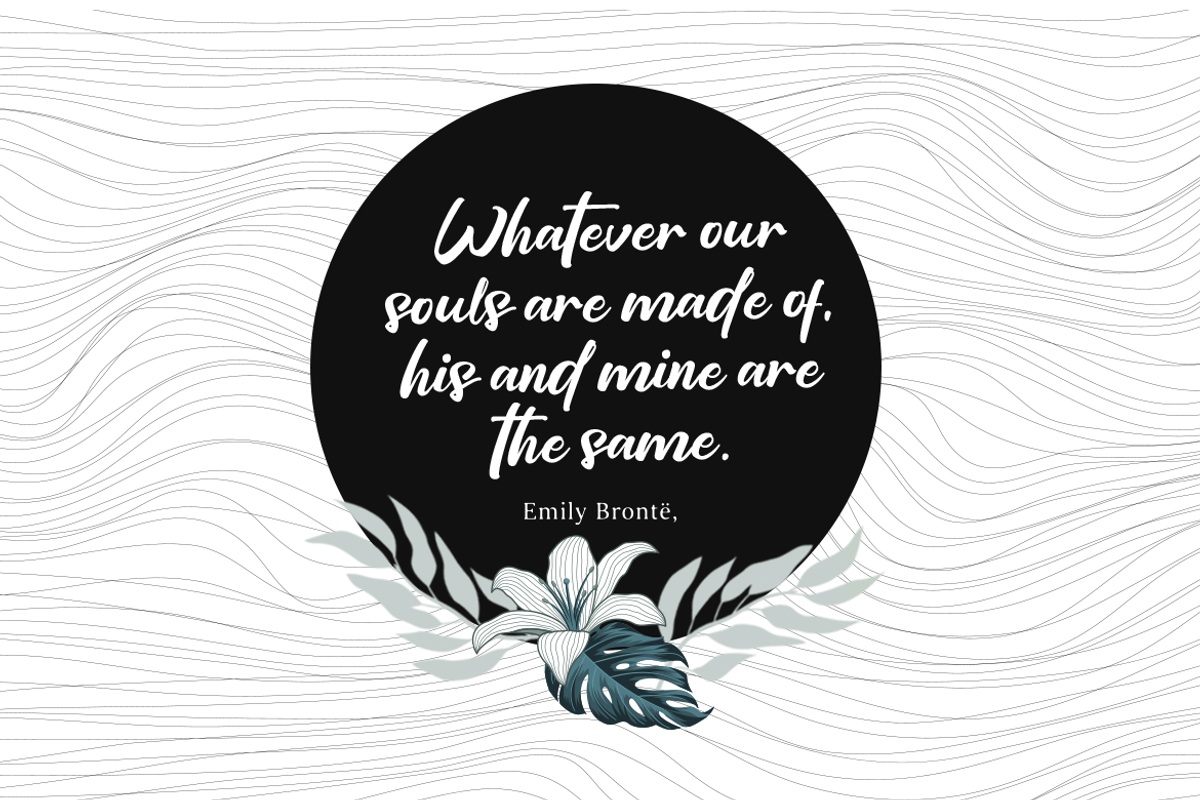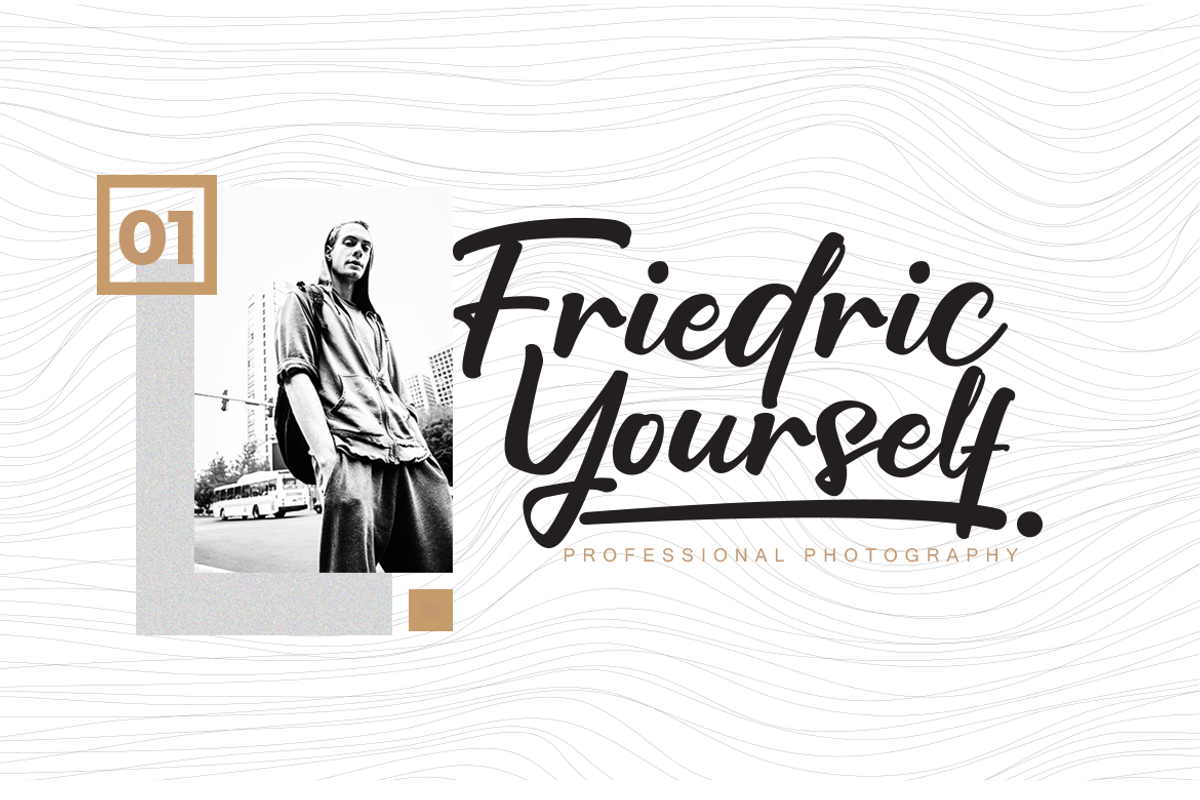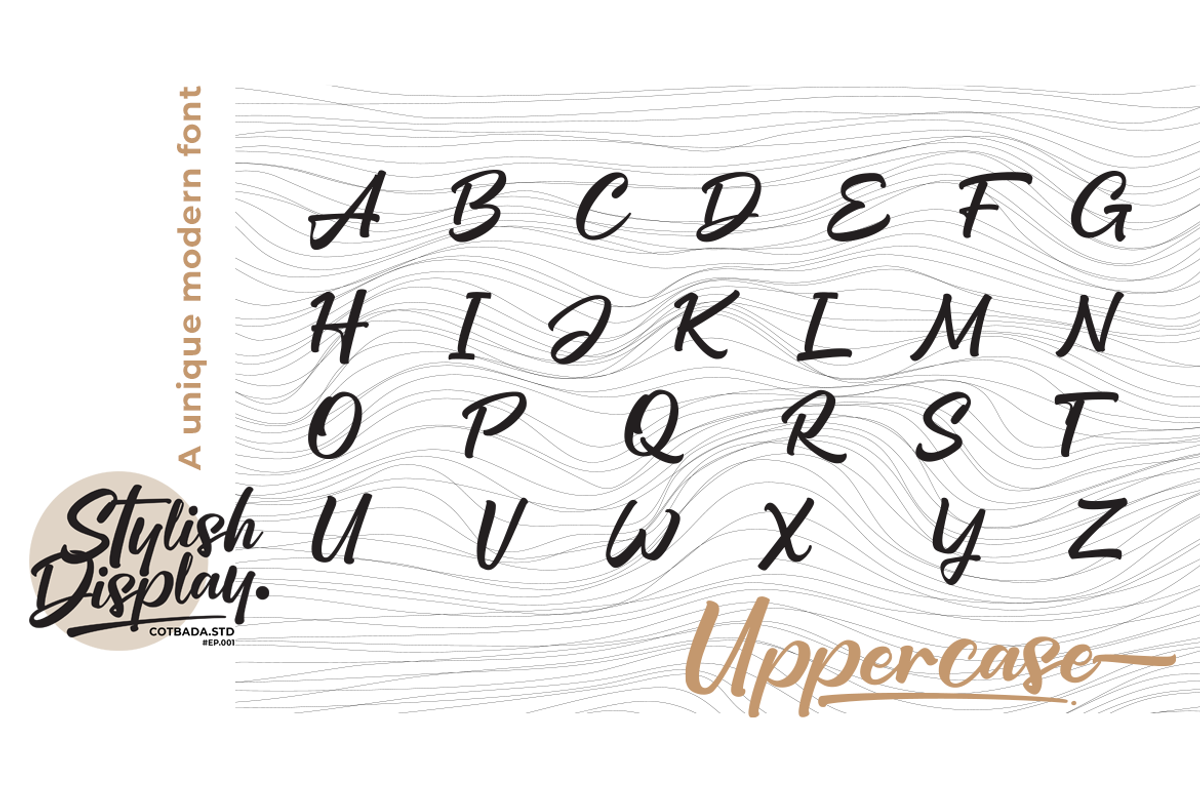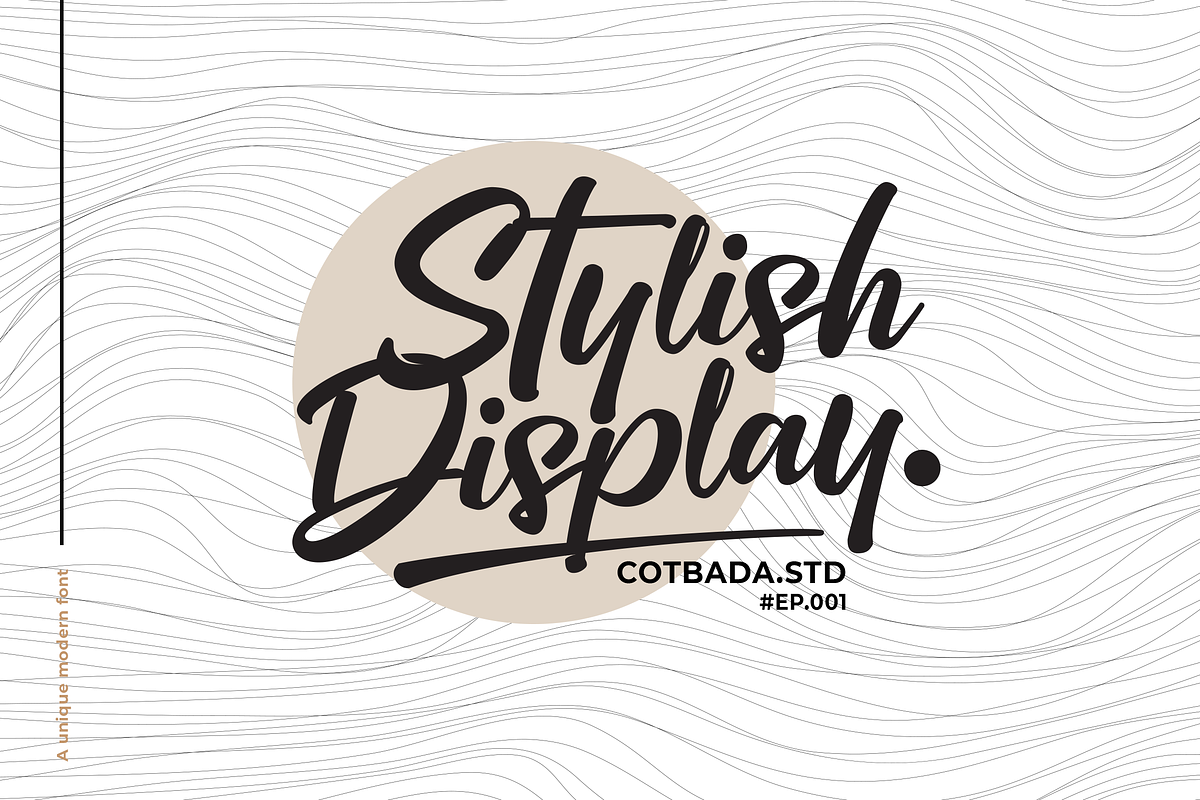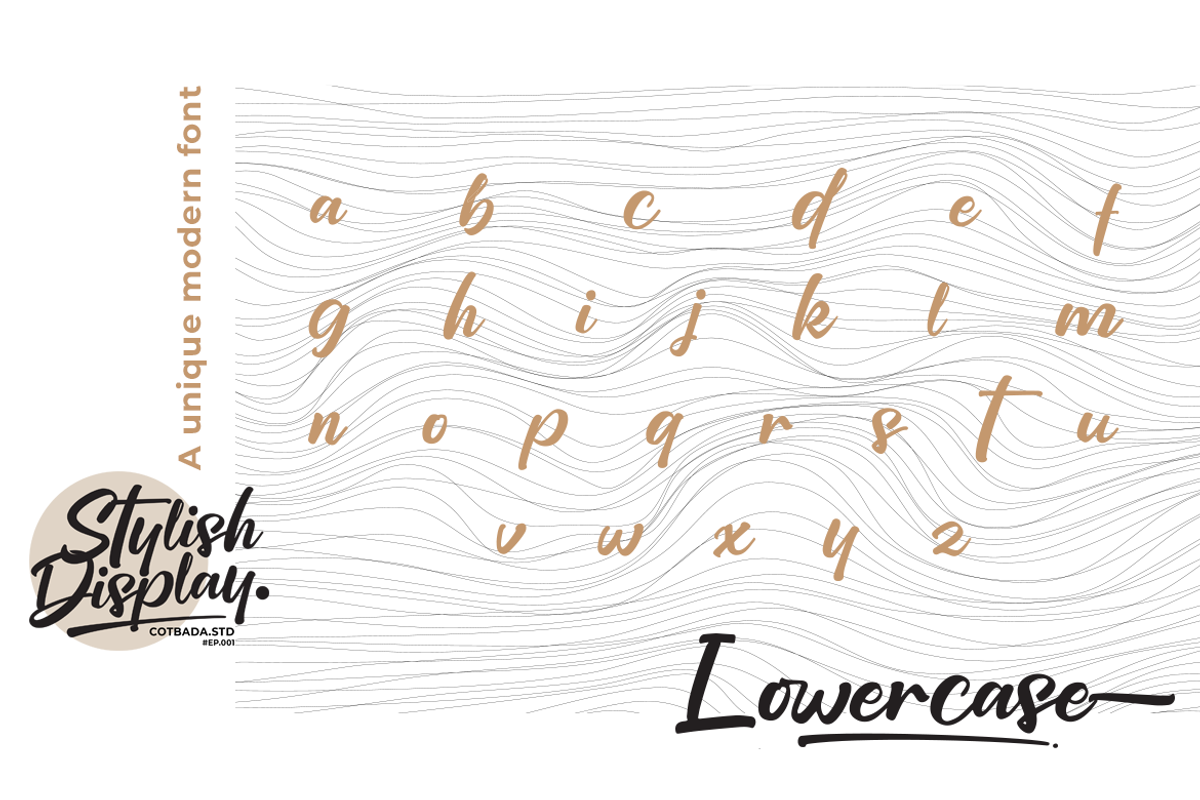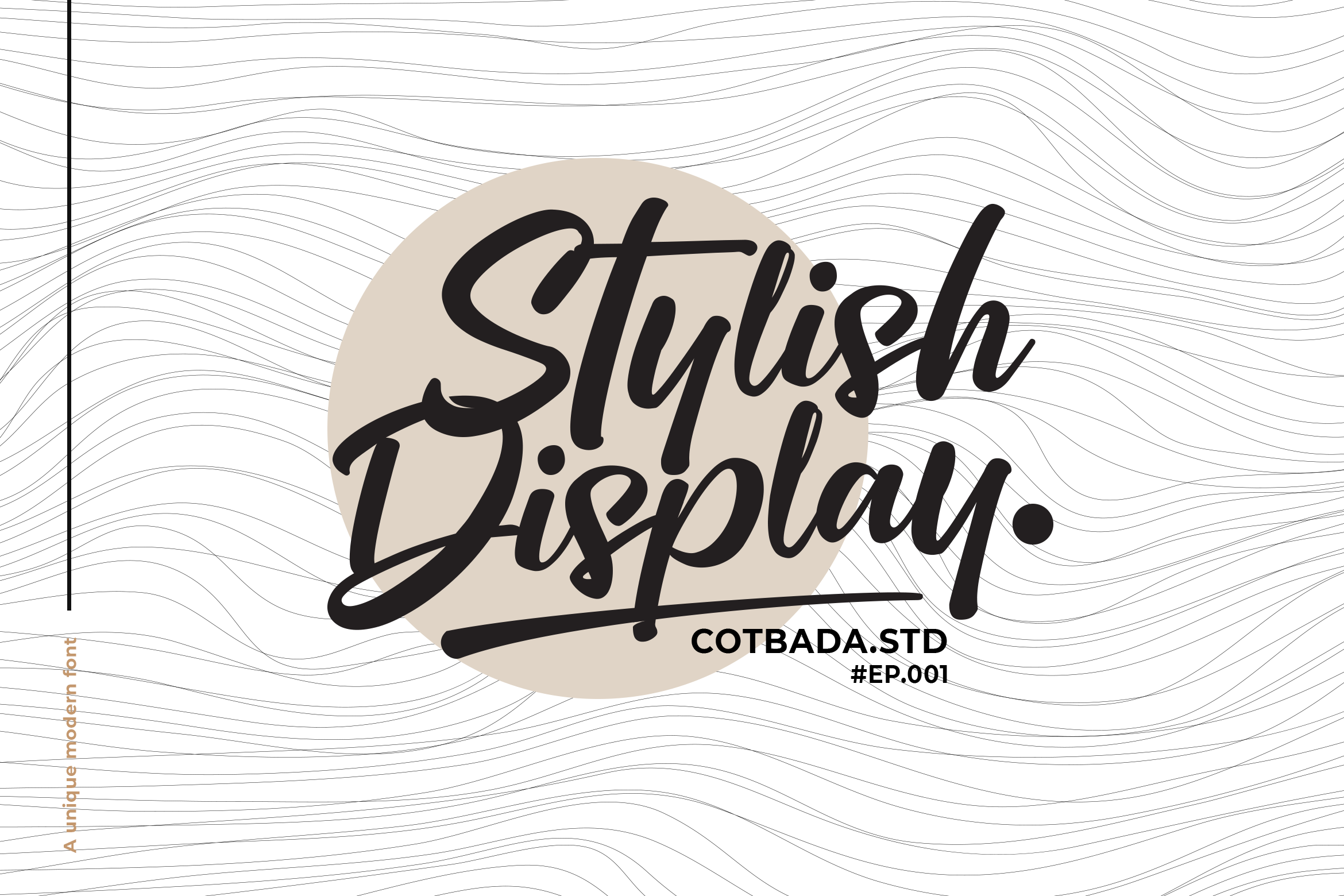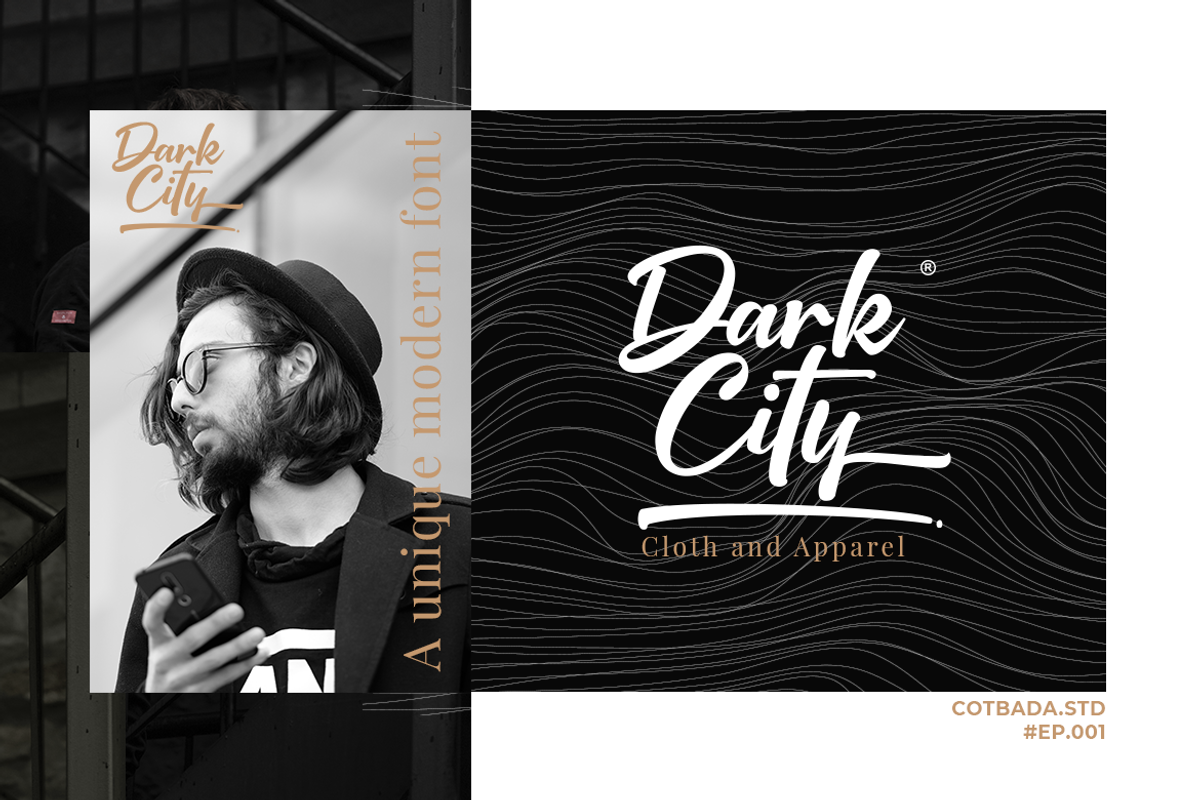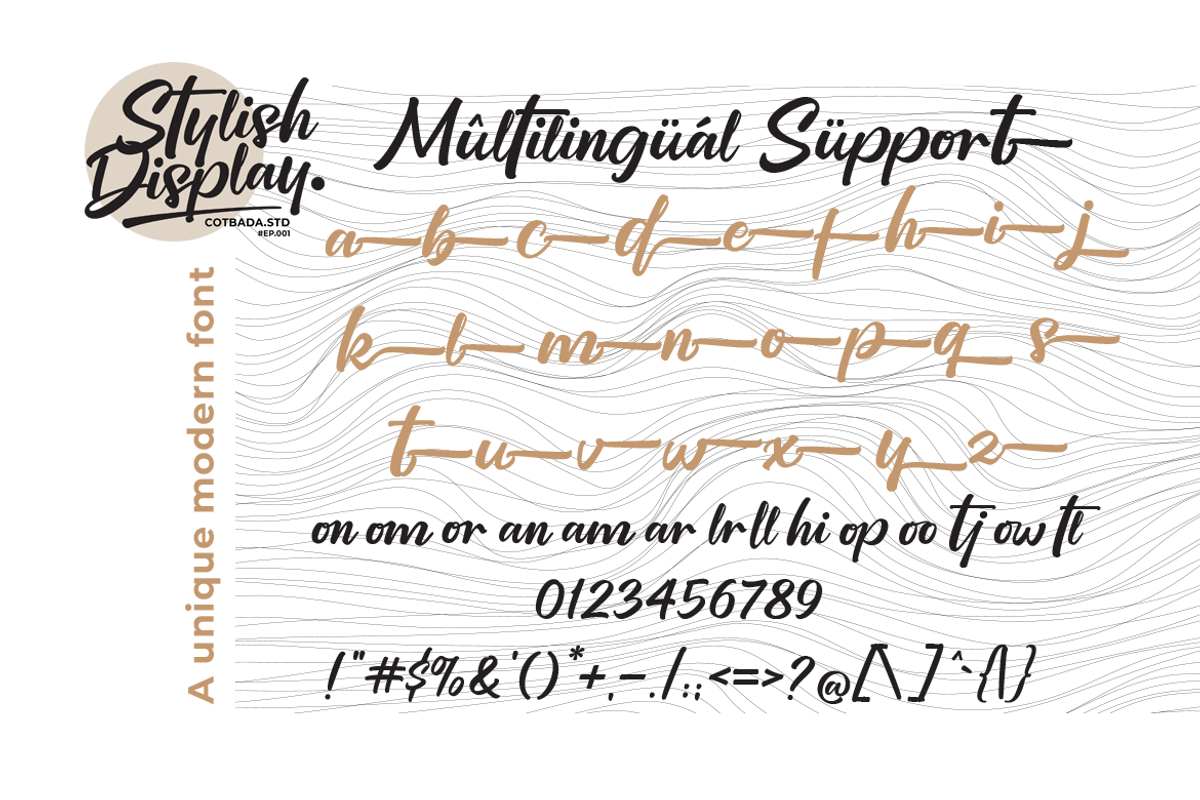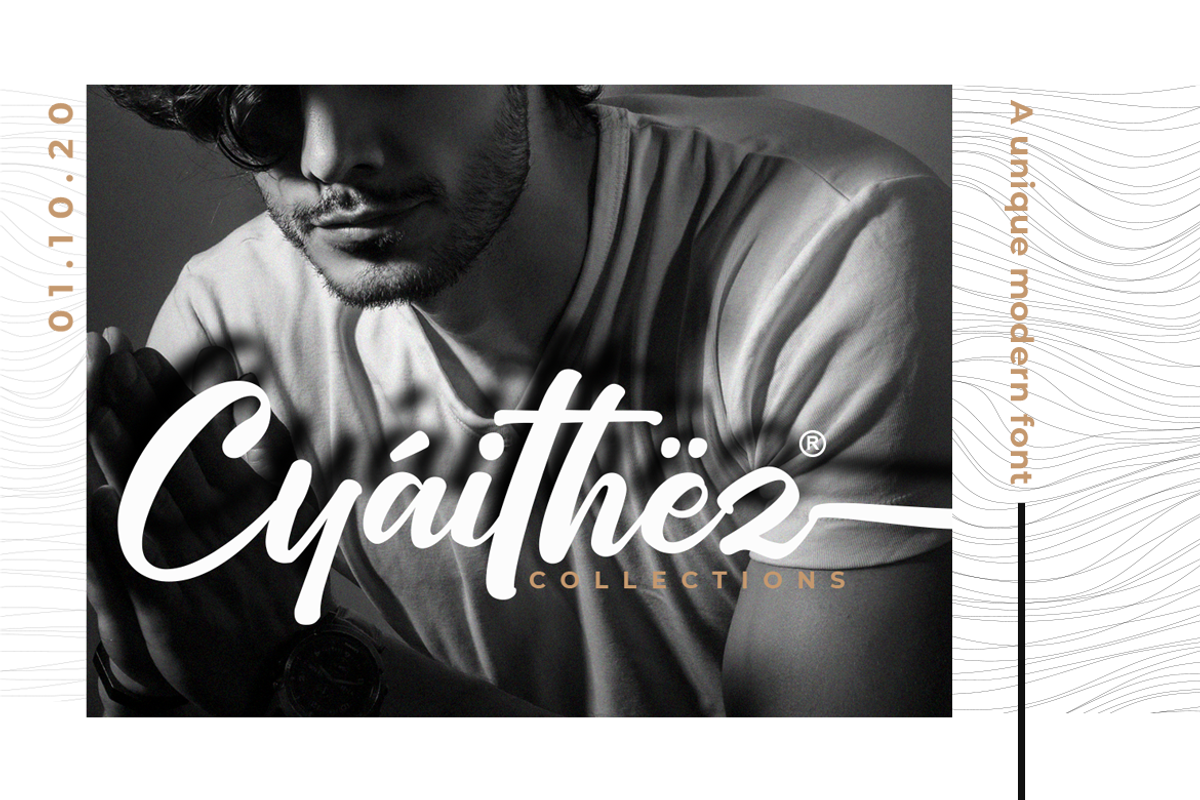
Stylish Display Font
Stylish Display Font Inspired by modern style and combination with Hand Lettering style. I hope this can make inspire you from your work. and a very bouncy baseline It has a perfectly paired complimentary marker font , and a super handy set of bonus Swash. Ideal for logos, handwritten quotes, product packaging, header, poster, merchandise, social media & greeting cards.